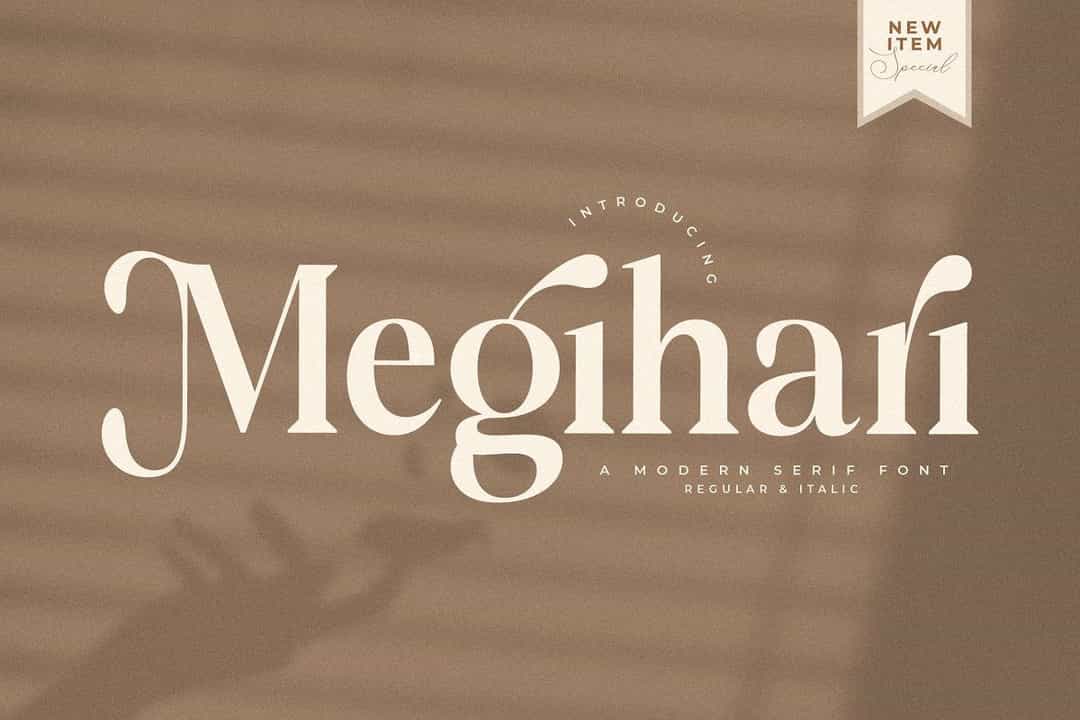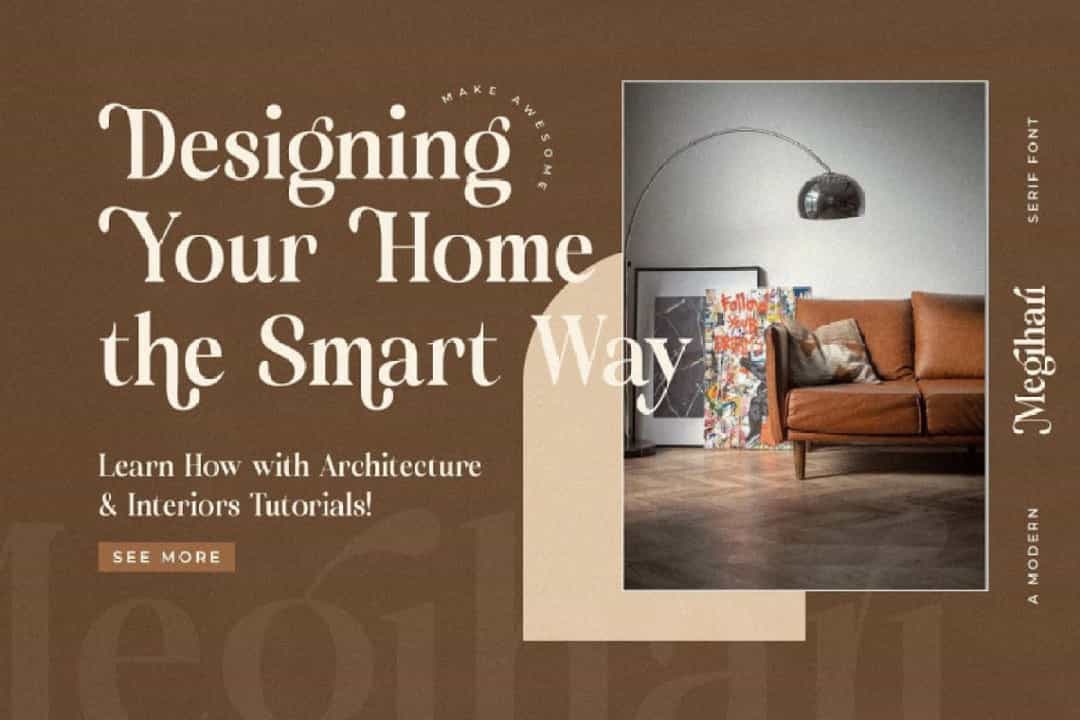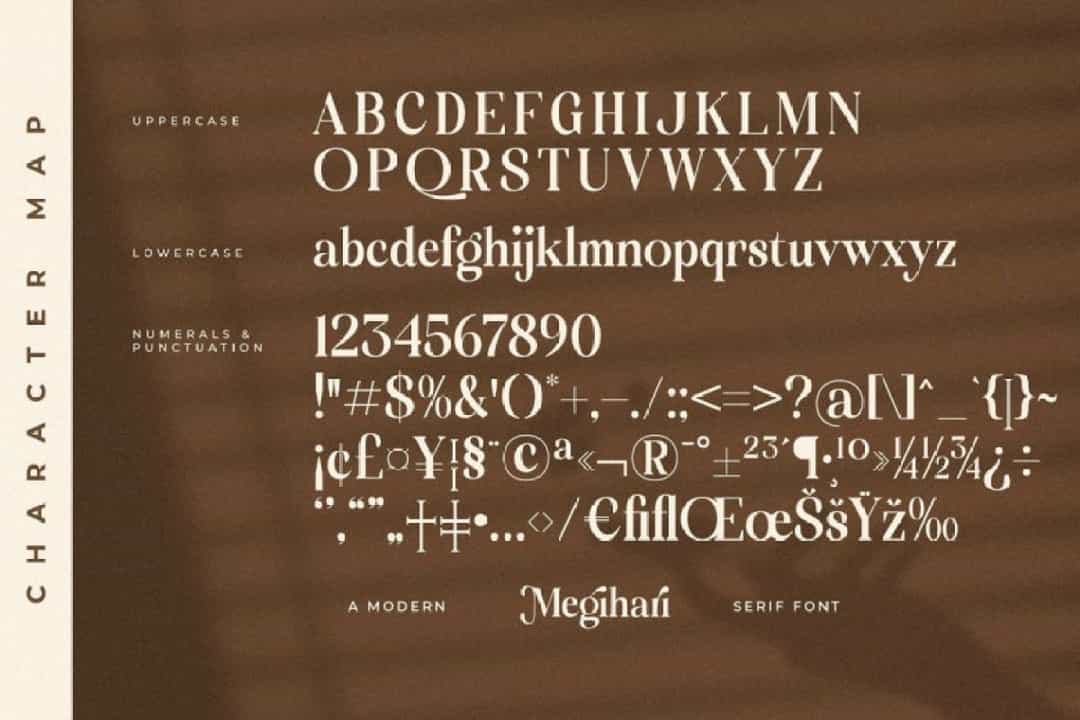
Storytype’s Megihari Font is a contemporary and timeless serif typeface with its own distinct style and modern appearance, perfect for creating elegant logos, movie or book name designs, fashion brand clothing designs, magazine letters, quotes and much more.